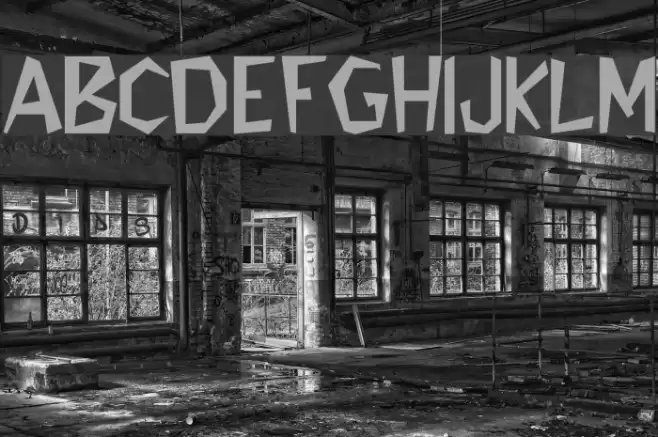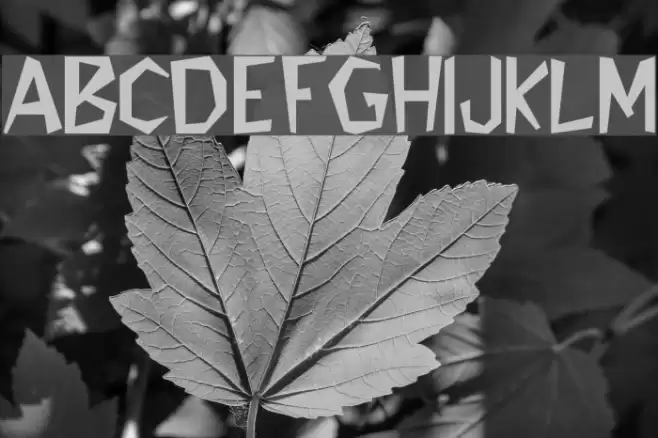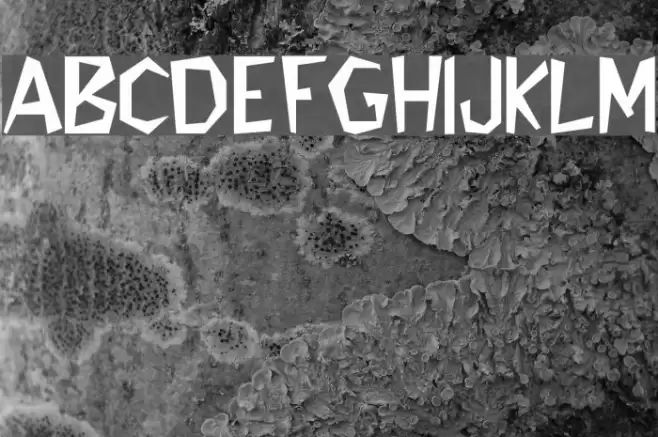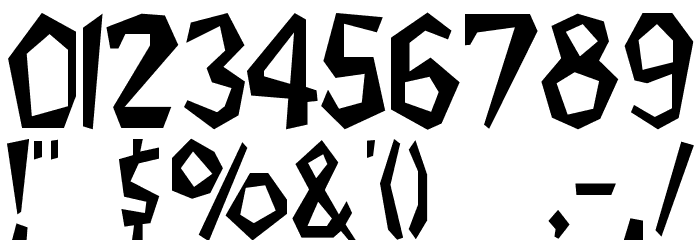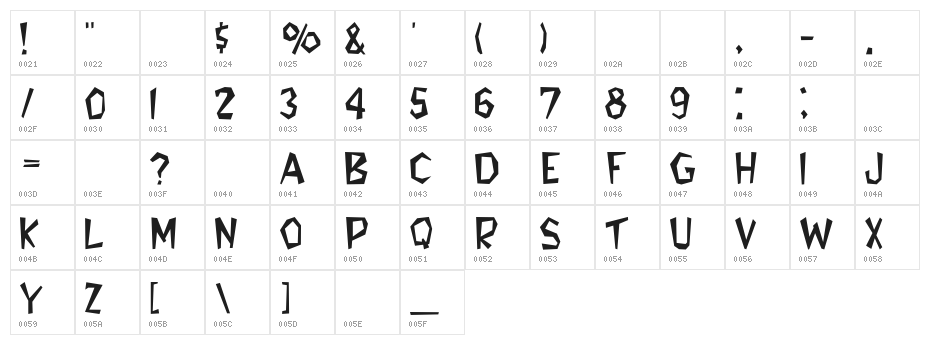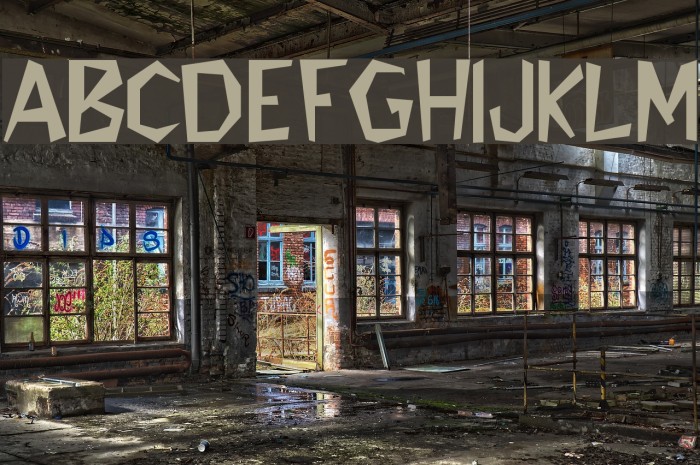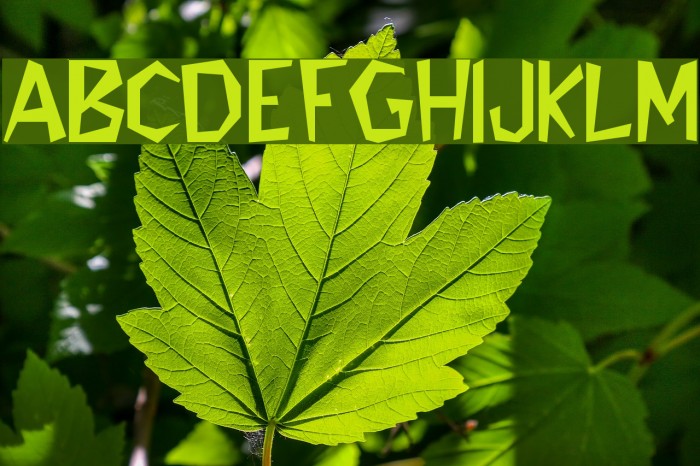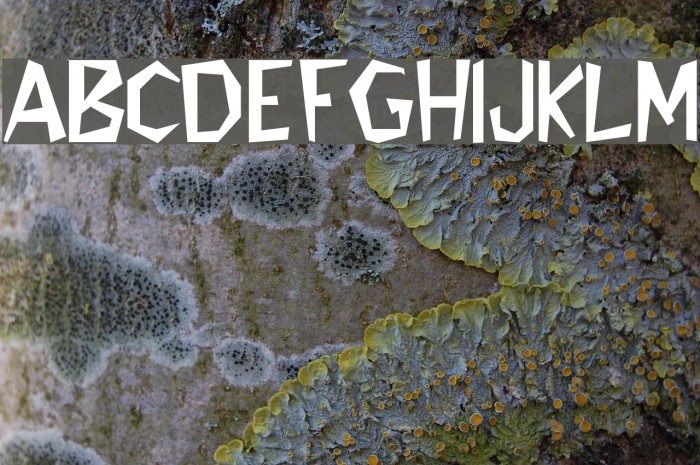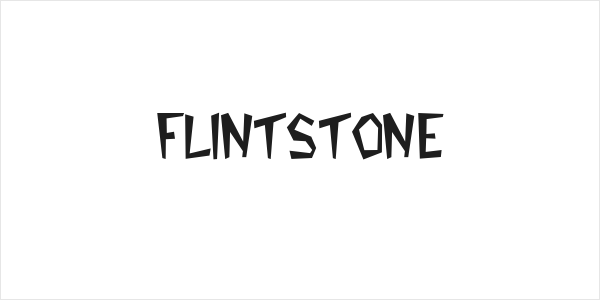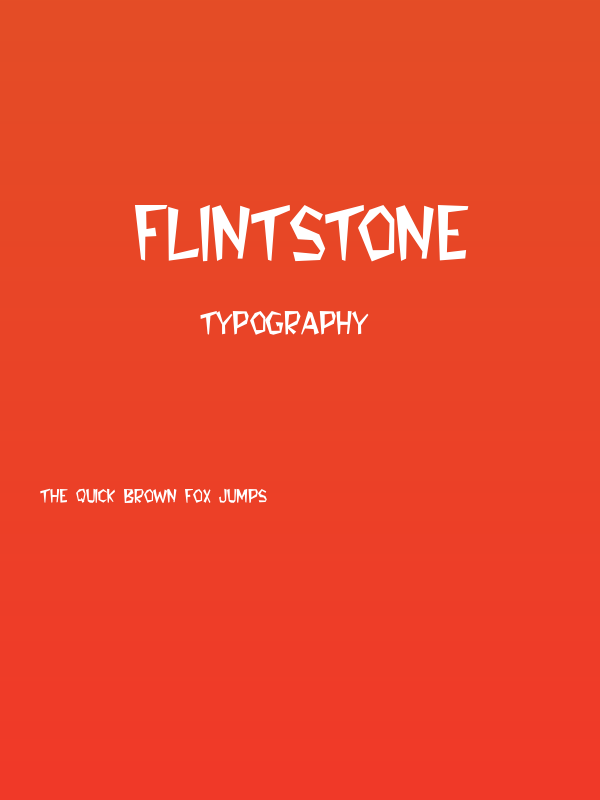
Flintstone Font
Flintstone Description
This font features a playful and rugged design, reminiscent of prehistoric or cartoonish themes. The characters are bold and angular, with irregular edges that give a hand-chiseled appearance. The uppercase letters are particularly striking, with exaggerated angles and a sense of movement. The lowercase letters maintain the same playful style, ensuring consistency throughout the typeface. Numbers and special characters are equally bold and dynamic, making them stand out in any design. This font is perfect for projects that require a fun, adventurous, or thematic touch.
A playful, rugged font with a hand-chiseled, cartoonish style from Cartoon fonts.
- Proposed Projects: Ideal for children's books, themed posters, cartoons, and playful branding.